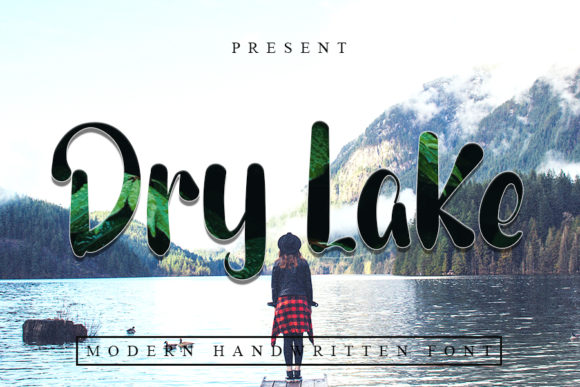
Unleash the power of expression with Dry Lake Font, a captivating handwritten treasure that will transform your creative visions into mesmerizing realities. Step into a world of elegance and charm, where every letter dances with grace and fluidity, leaving an unforgettable impression on your audience.
Indulge in the beauty of Dry Lake's smooth curves and playful strokes, meticulously crafted to evoke a sense of joy and whimsy. Its enchanting personality is a perfect match for fashion branding, editorial designs, and any project that demands a touch of sophistication.
With Dry Lake Font, you hold the key to unlocking a universe of creative possibilities. Envision your words taking flight, each character a work of art that captivates and engages your readers. From logos and branding to social media posts and website designs, Dry Lake will elevate your creations to new heights of allure.
Experience the magic of Dry Lake Font and embark on an artistic journey that knows no bounds. Let your imagination soar as you witness the transformation of your designs into captivating masterpieces. The possibilities are endless, and the brilliance is undeniable - Dry Lake Font is the ultimate choice for those who seek to make a lasting impact.